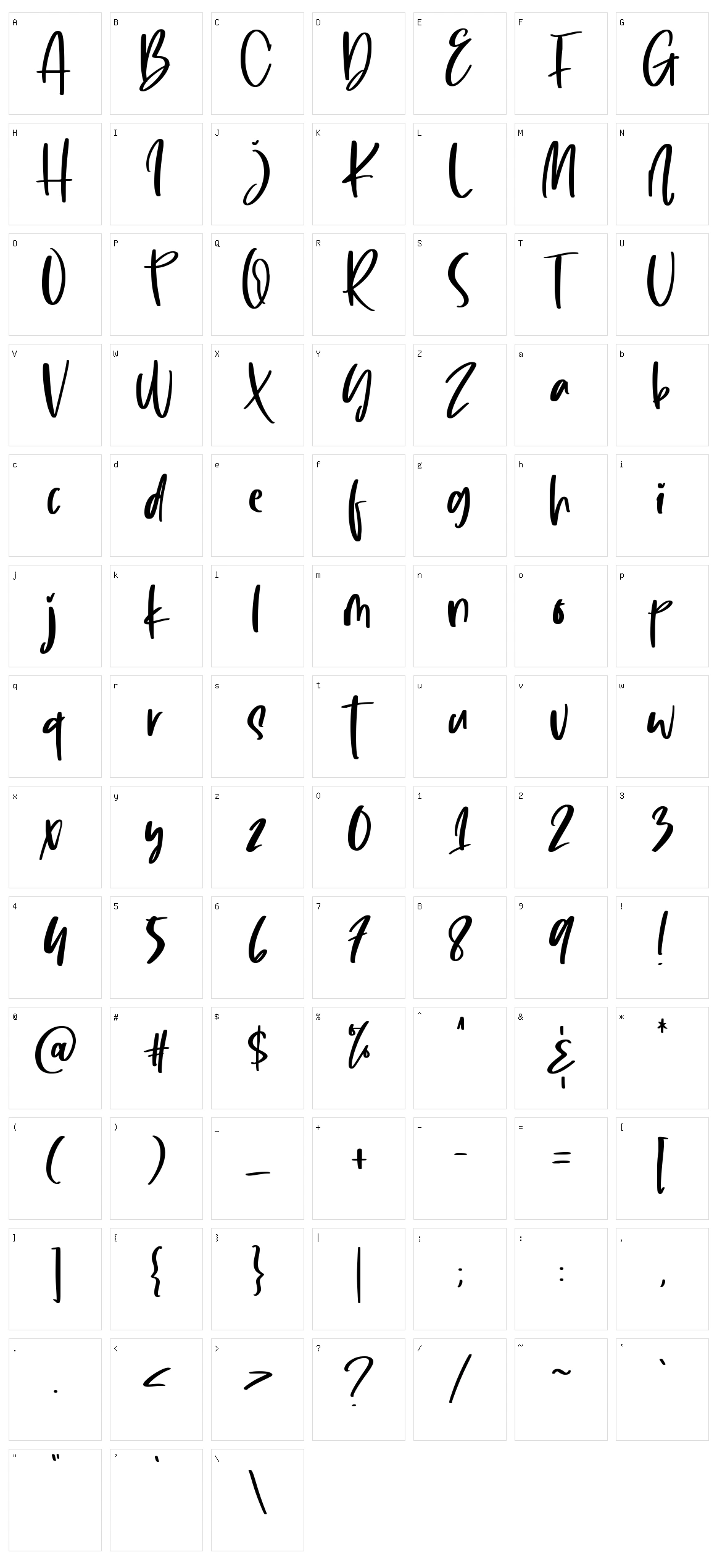
LOVELY PURPLE
- catchy & quirky handwritten -
LOVELY PURPLE is natural handwritten font.
It is great for quotes, card, banner, book, cutting, silhouette, social media content and anything of craft project.
Lowercase and uppercase are matching each other, so you can combine them as you want. I created some ligatures to make it look so natural.